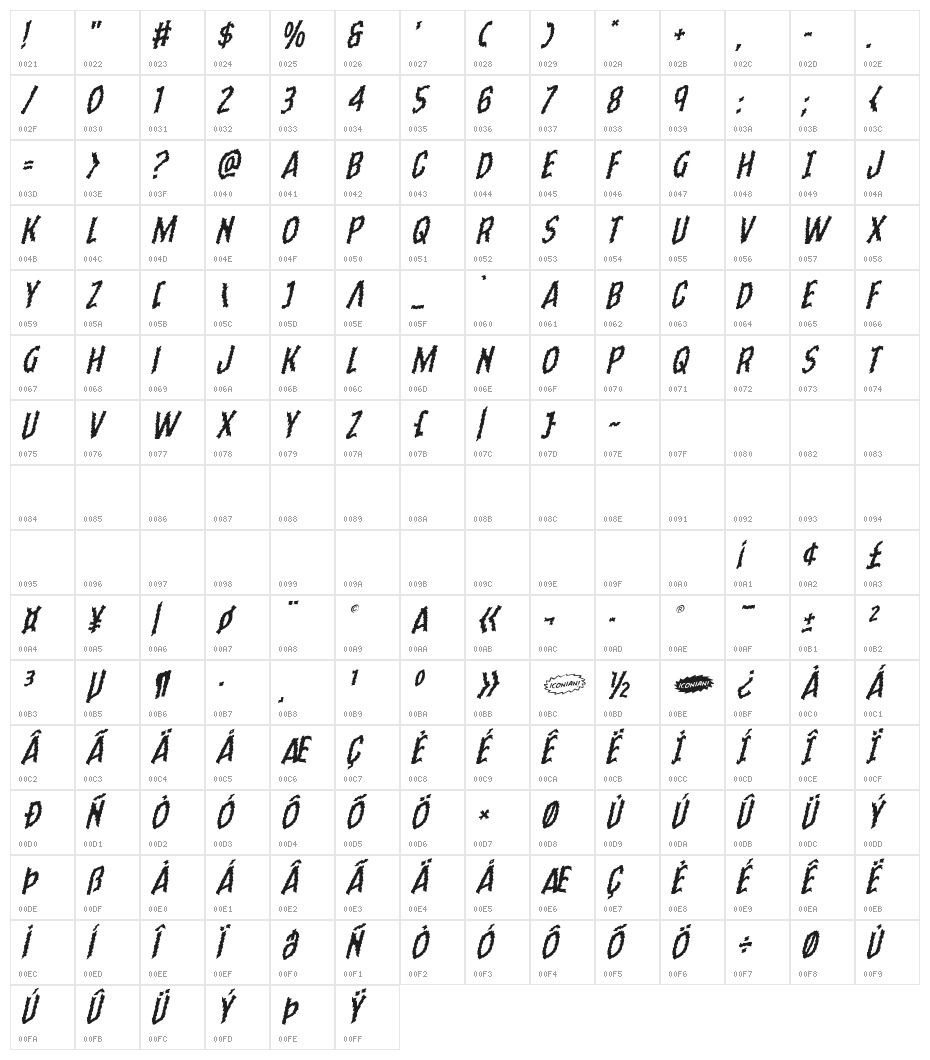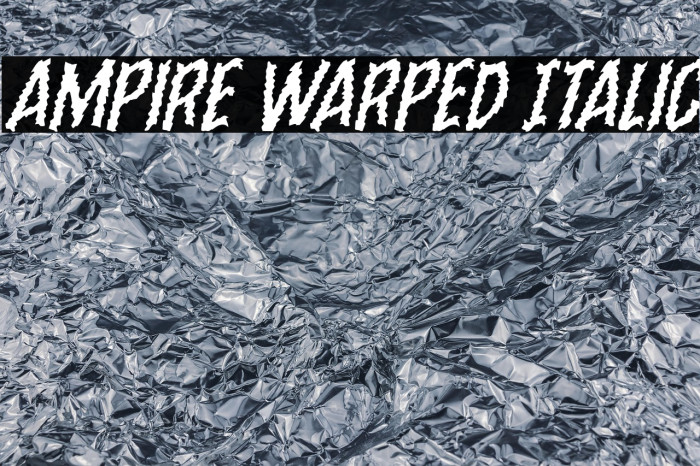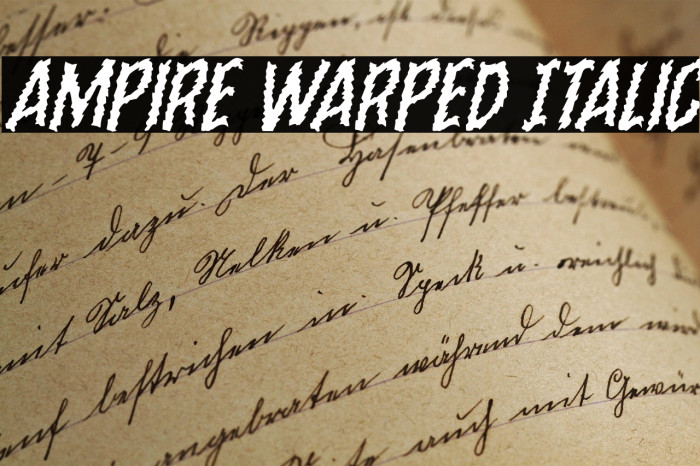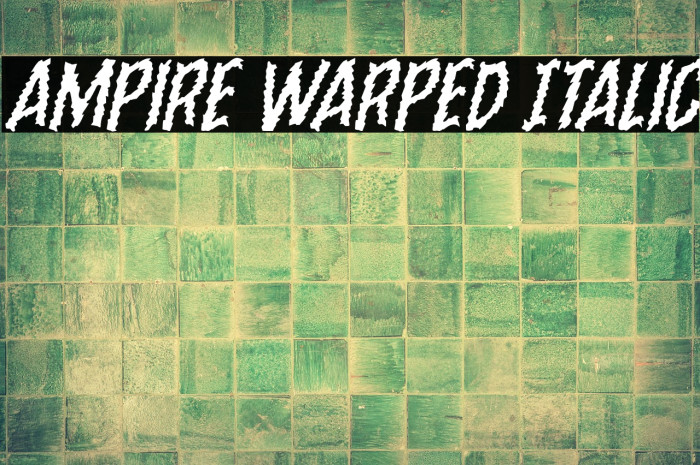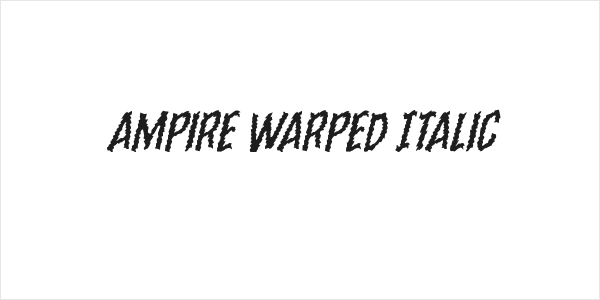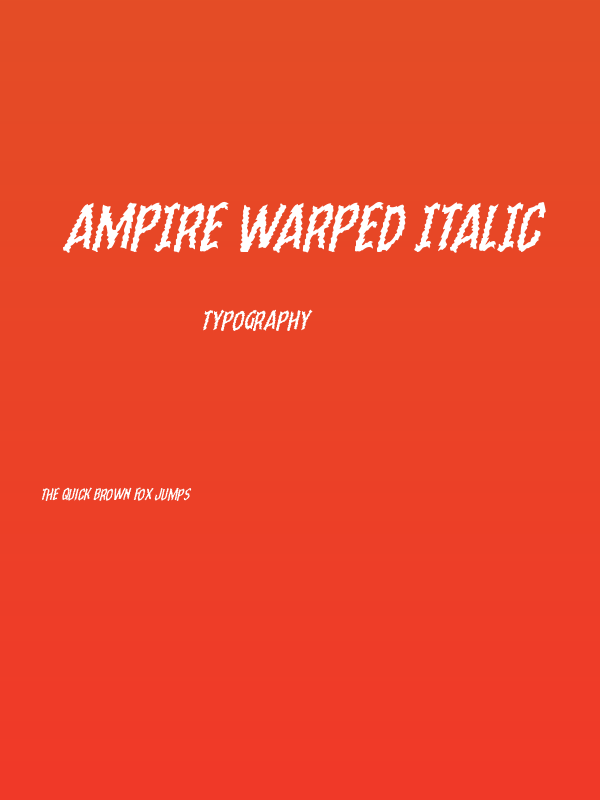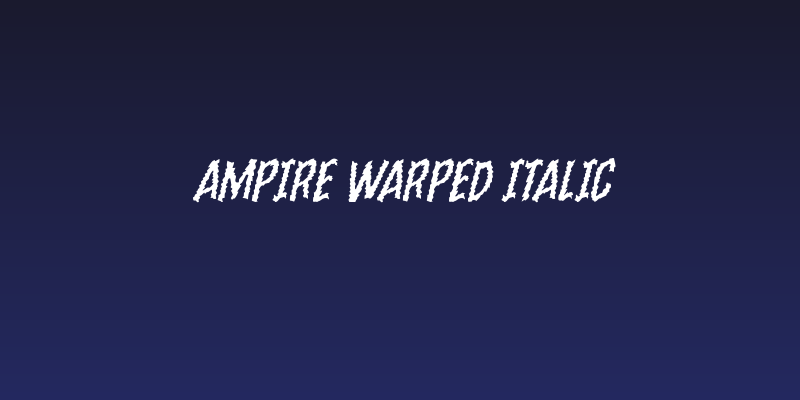
Ampire Warped Italic Font
Ampire Warped Italic Description
This font features a bold and dynamic style with a distinct warped and italicized appearance. The characters are sharply angled, giving a sense of movement and energy. The strokes are thick and jagged, creating a rugged texture that stands out. The uppercase and lowercase letters maintain a consistent slant, enhancing the italic effect. Numbers and special characters follow the same design principles, ensuring uniformity across the typeface. This font's unique style makes it suitable for eye-catching designs that require a strong visual impact.
Overall StyleModern, Energetic
Proposed ProjectsIdeal for posters, album covers, video game graphics, and any project needing a bold, energetic typeface.